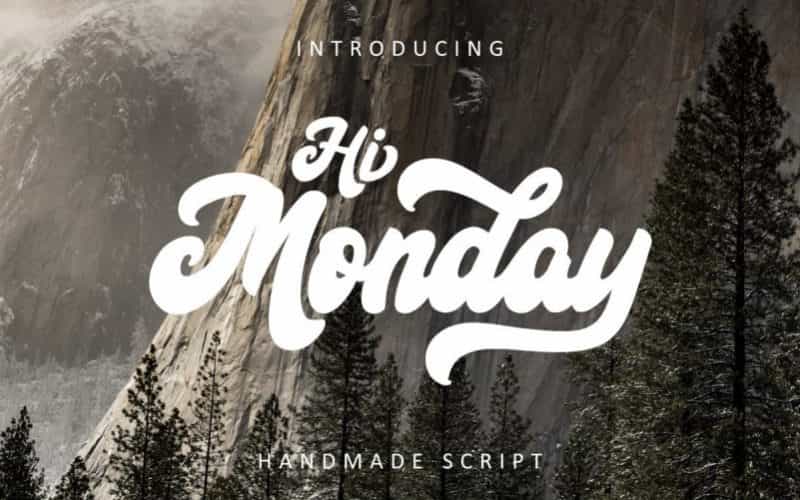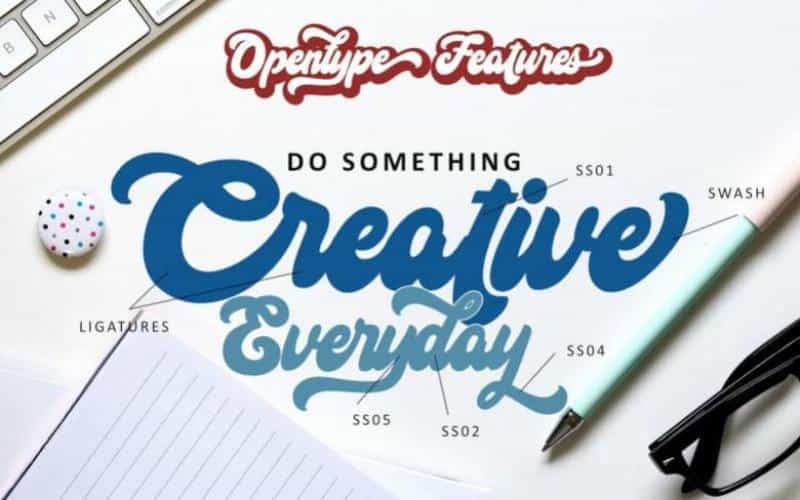
Discover Hi Monday Script Font, part of the Brush Old School collection—a versatile and unique font perfect for adding a personal touch to your projects. Download it for free and enjoy crafting designs with style, from invitations to social media posts. This font is available exclusively for personal use, giving you the freedom to create without limits. Unlock your creativity with Hi Monday Script Font today!
Hello Monday is a font of modern calligraphy. Hello Monday a beautiful for signatures, logos, wedding invitations, website, headline, letterheads, nameplate, labels, bulletins, posters, quotes, badges, branding, greeting Cards, etc. and all other project design.